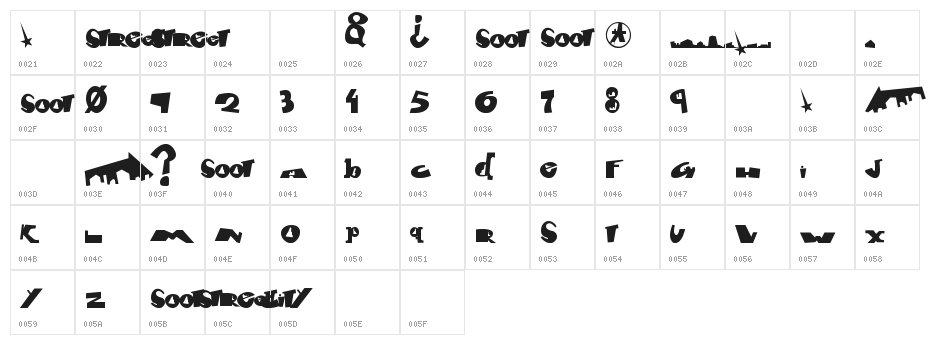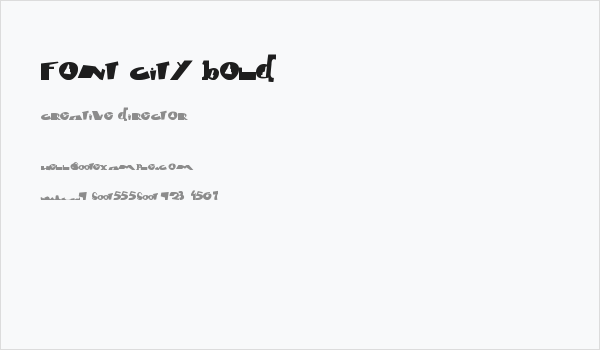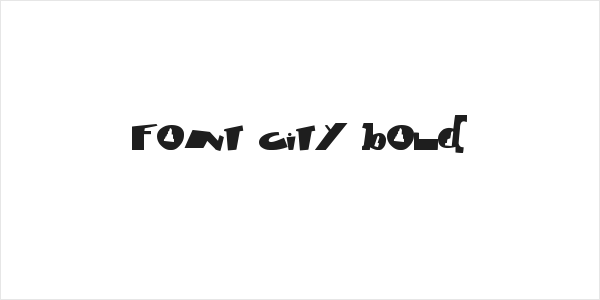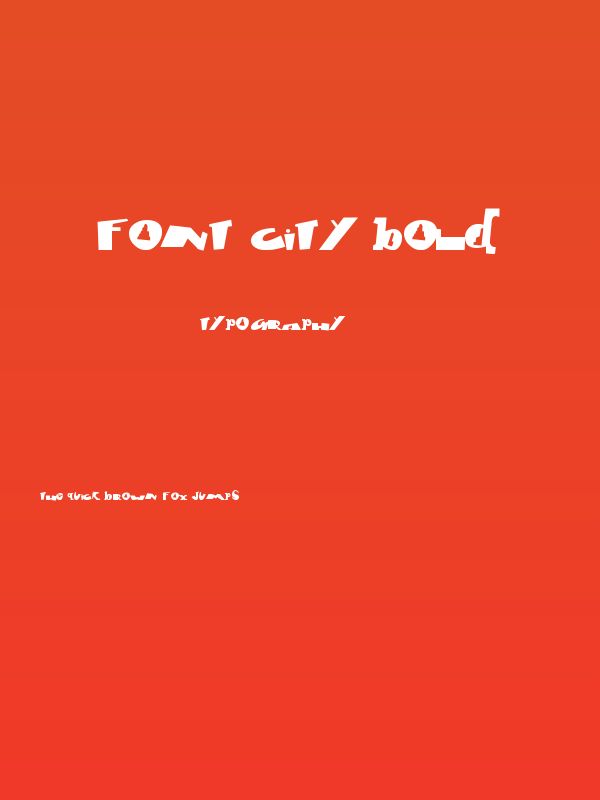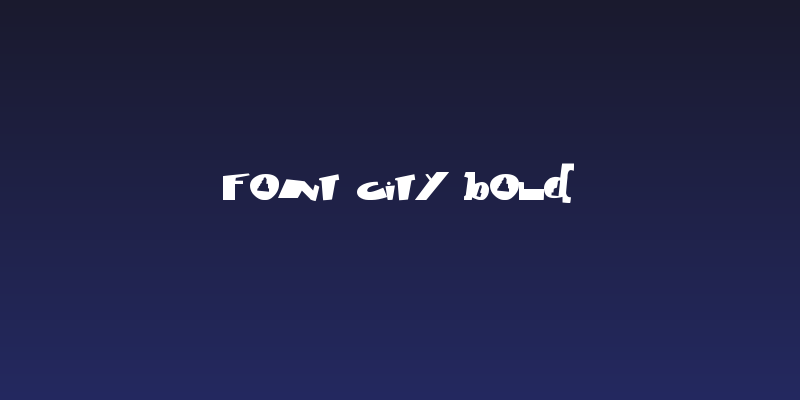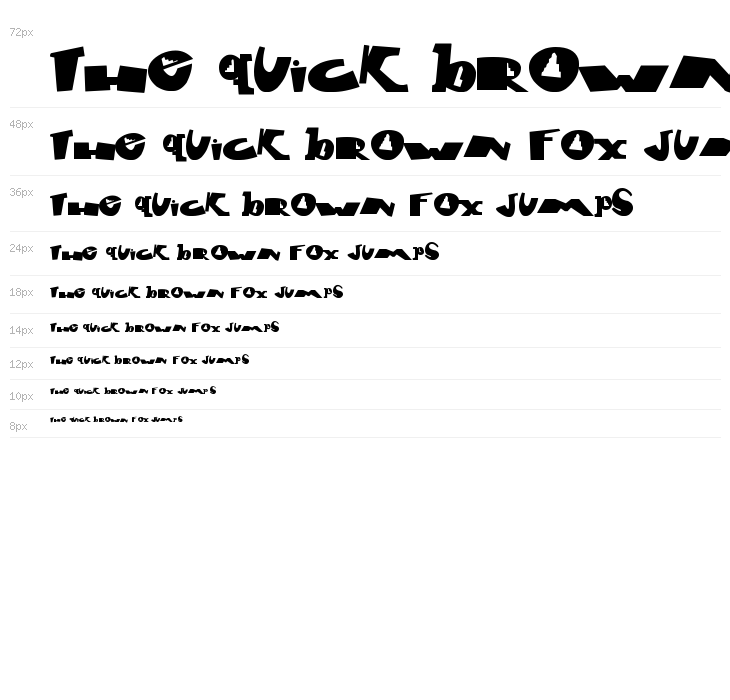
font city Bold Font
font city Bold Description
This font features a bold and dynamic style with a strong urban influence. The characters are uniquely designed with angular cuts and varying thickness, creating a sense of movement and energy. The uppercase and lowercase letters maintain a consistent theme, while the numbers and special characters add a playful touch. The overall appearance is striking and modern, making it ideal for projects that require a bold statement. The font's distinctive style is perfect for capturing attention and conveying a sense of creativity and innovation.
| Proposed Projects | Ideal for street art designs, urban-themed posters, music album covers, and edgy branding projects. |